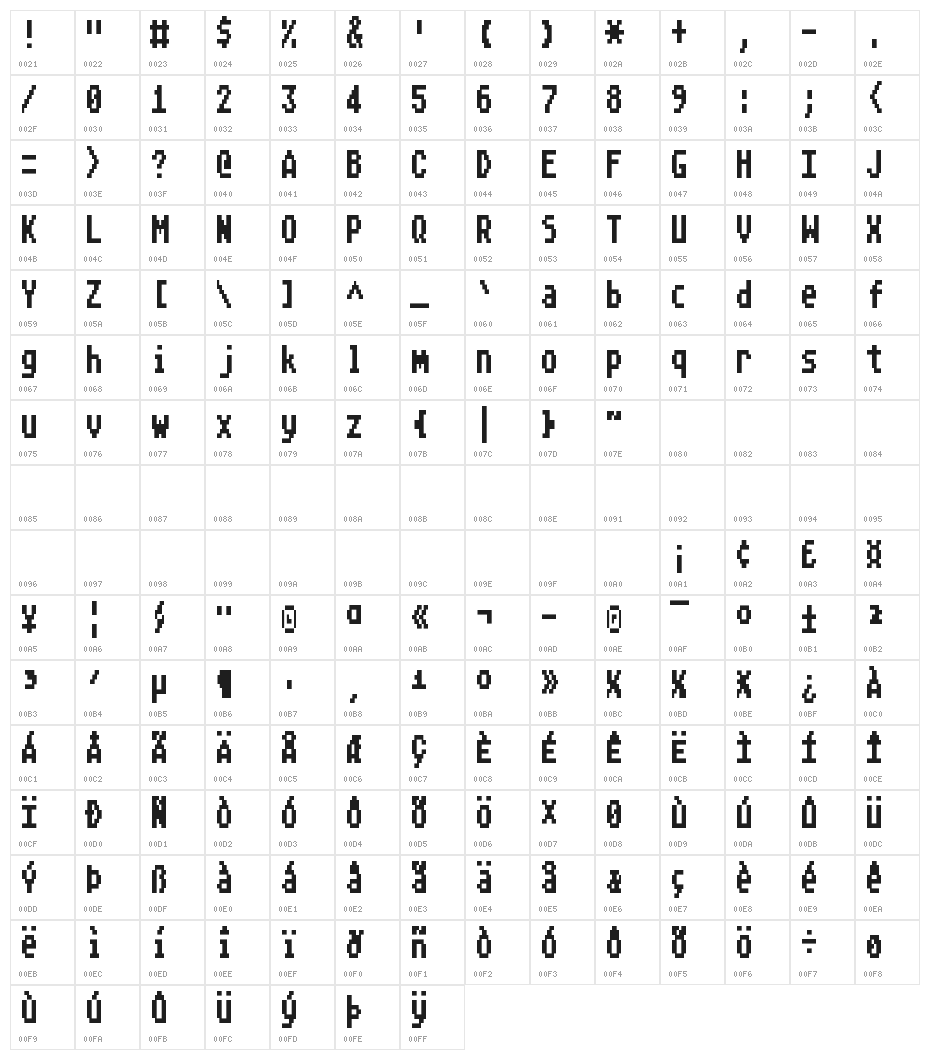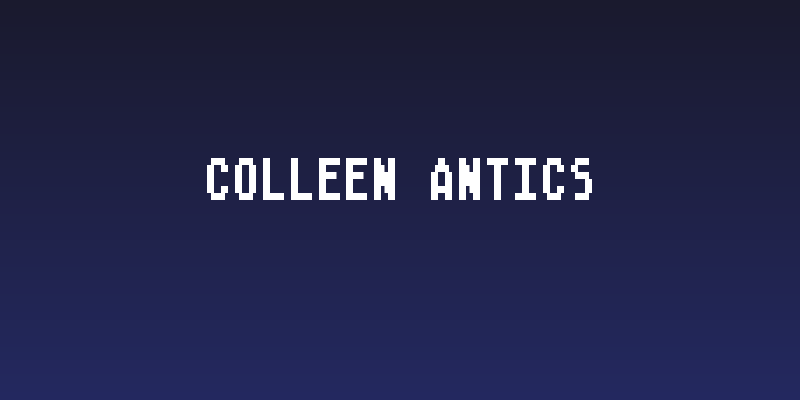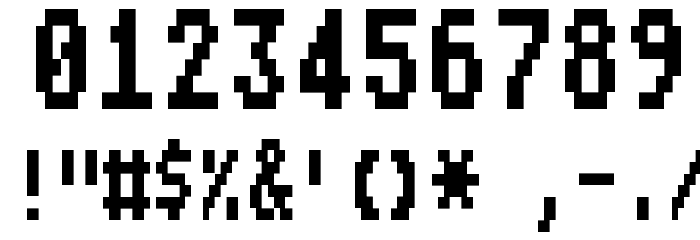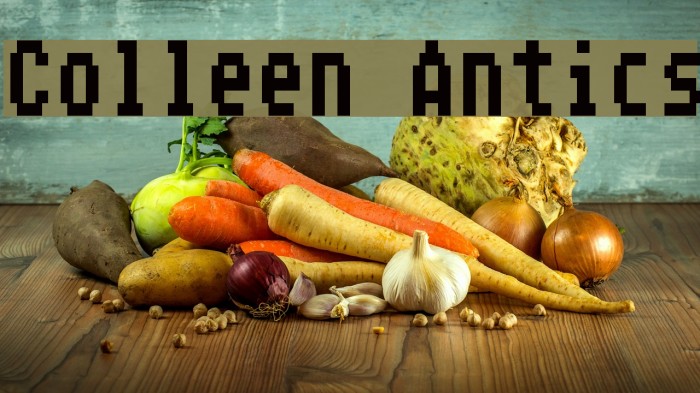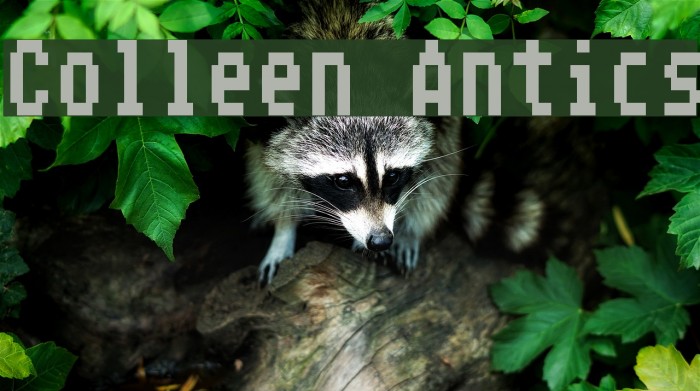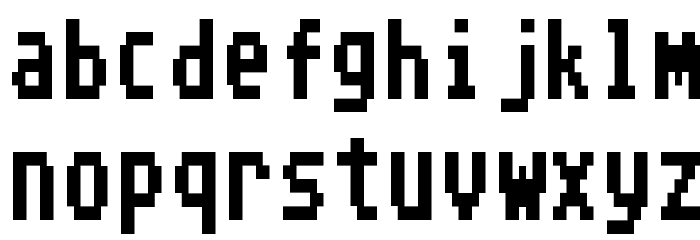
Colleen Antics Font
Colleen Antics Description
This font features a bold, pixelated design reminiscent of early digital displays and retro video games. Each character is constructed from a grid of square pixels, giving it a distinctly blocky and geometric appearance. The uppercase and lowercase letters maintain a consistent height, with the lowercase being slightly smaller but equally bold. Numbers and special characters follow the same pixelated style, ensuring uniformity across all glyphs. The font's simplicity and clarity make it highly legible, even at smaller sizes, while its nostalgic aesthetic evokes a sense of playfulness and creativity.
| Use Case | Headlines, Logos, Digital Art |
| Proposed Projects | Ideal for retro-themed designs, video game graphics, digital art projects, and any creative work that seeks to evoke nostalgia for early computing and gaming eras. |